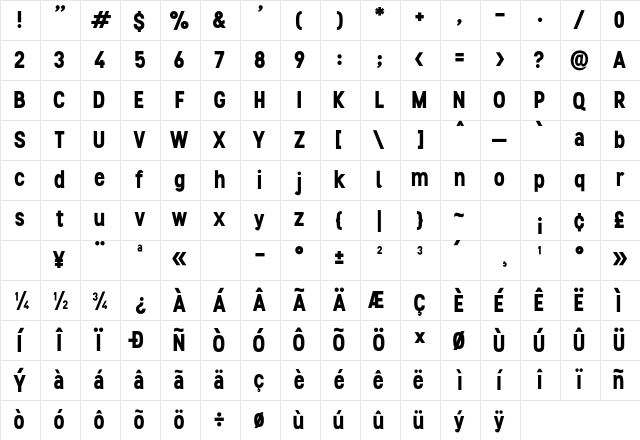
Stellar Bold
Foundry: Mahtieu Desjardins
Designer: Mahtieu Desjardins
Stellar Family
Design Context for Stellar
Stellar is a composed and adaptable typeface that performs quietly and consistently across a wide range of design contexts. Its bold stroke weight gives it real presence on the page.